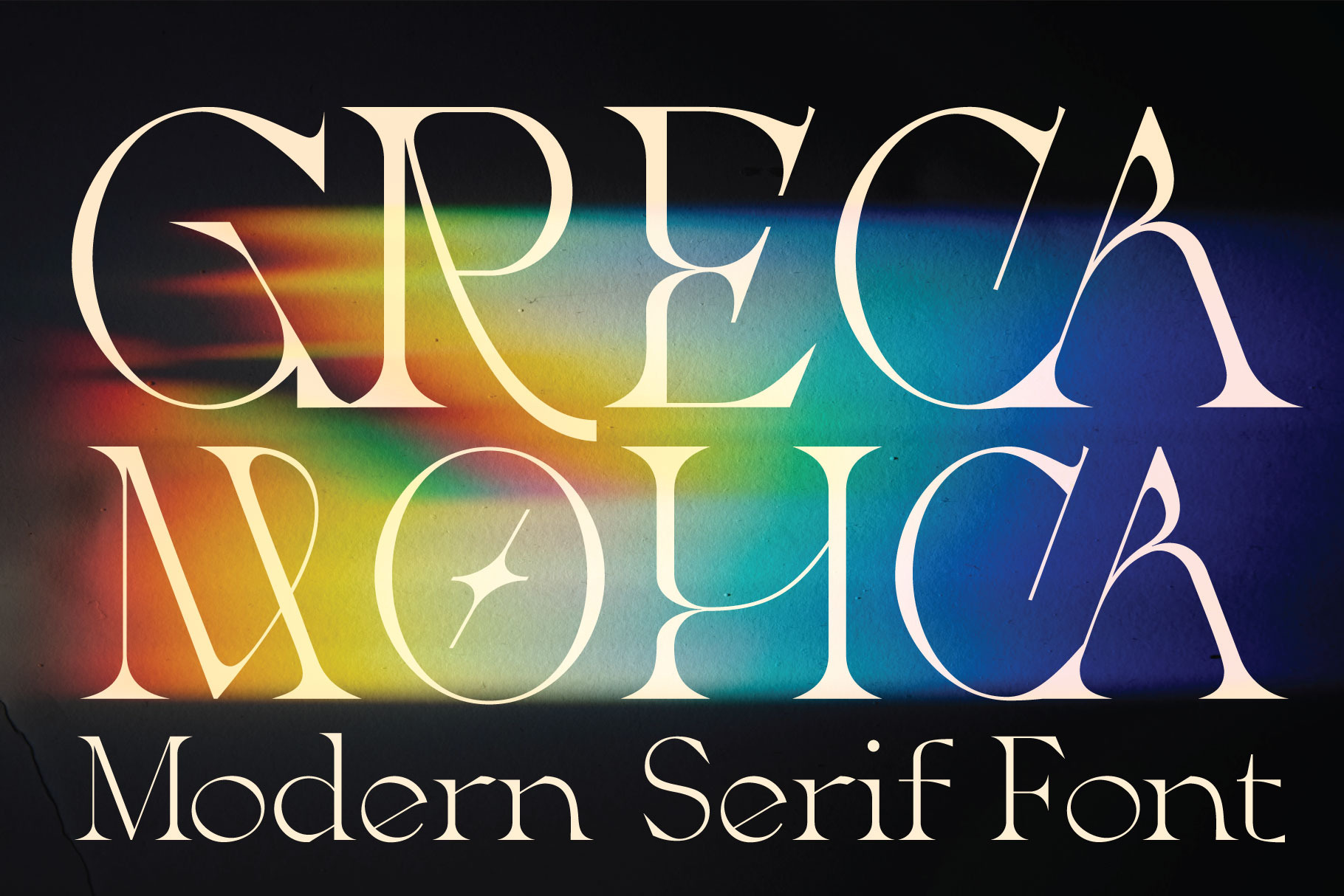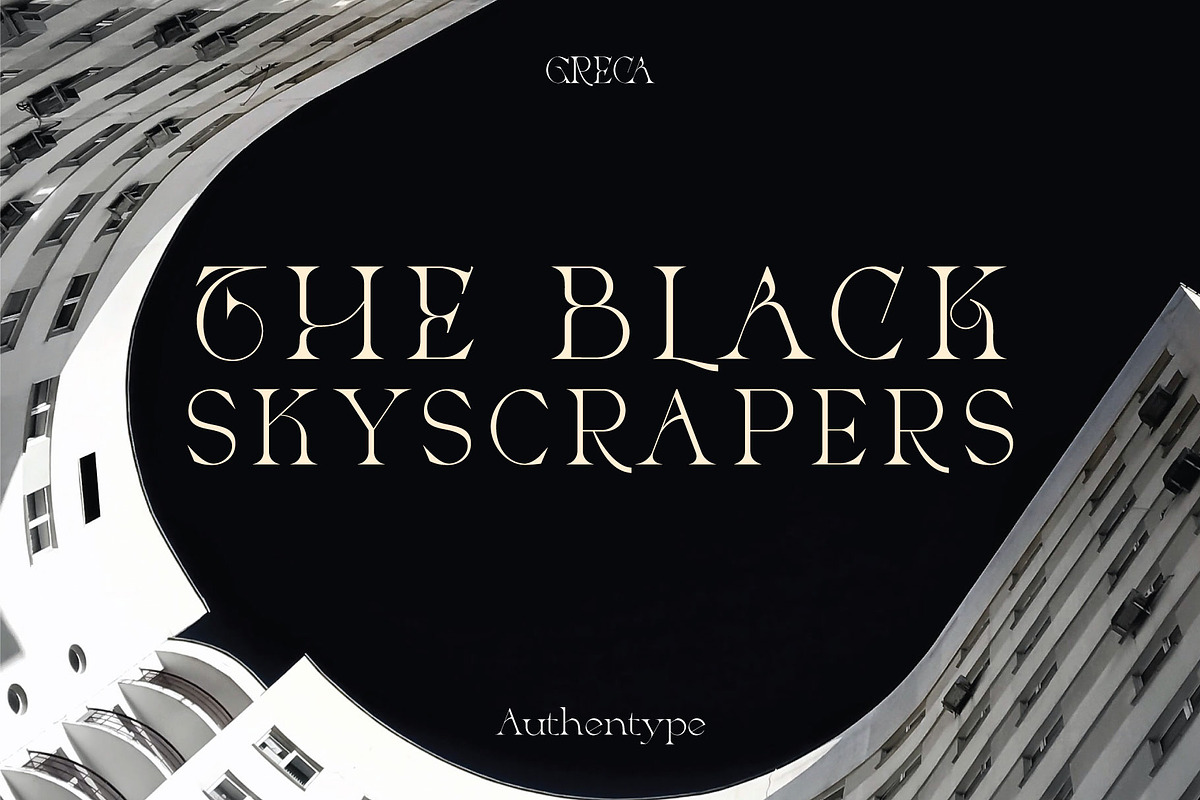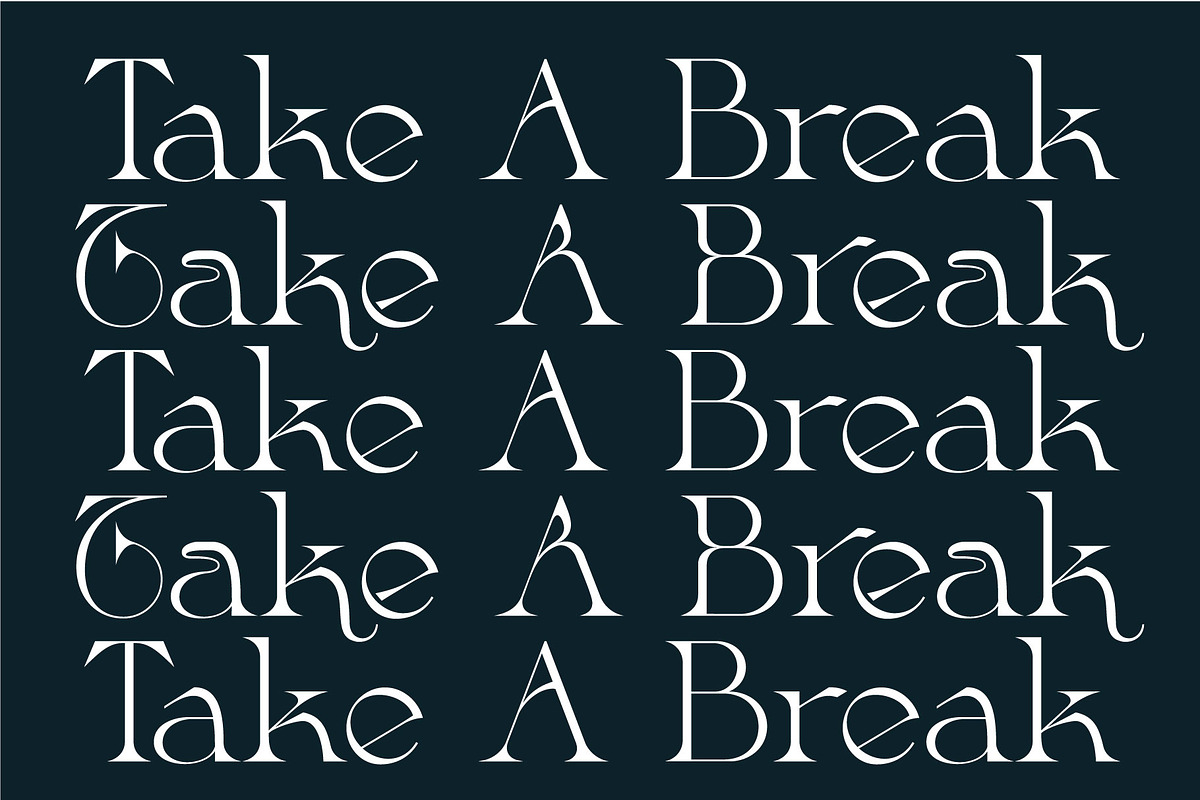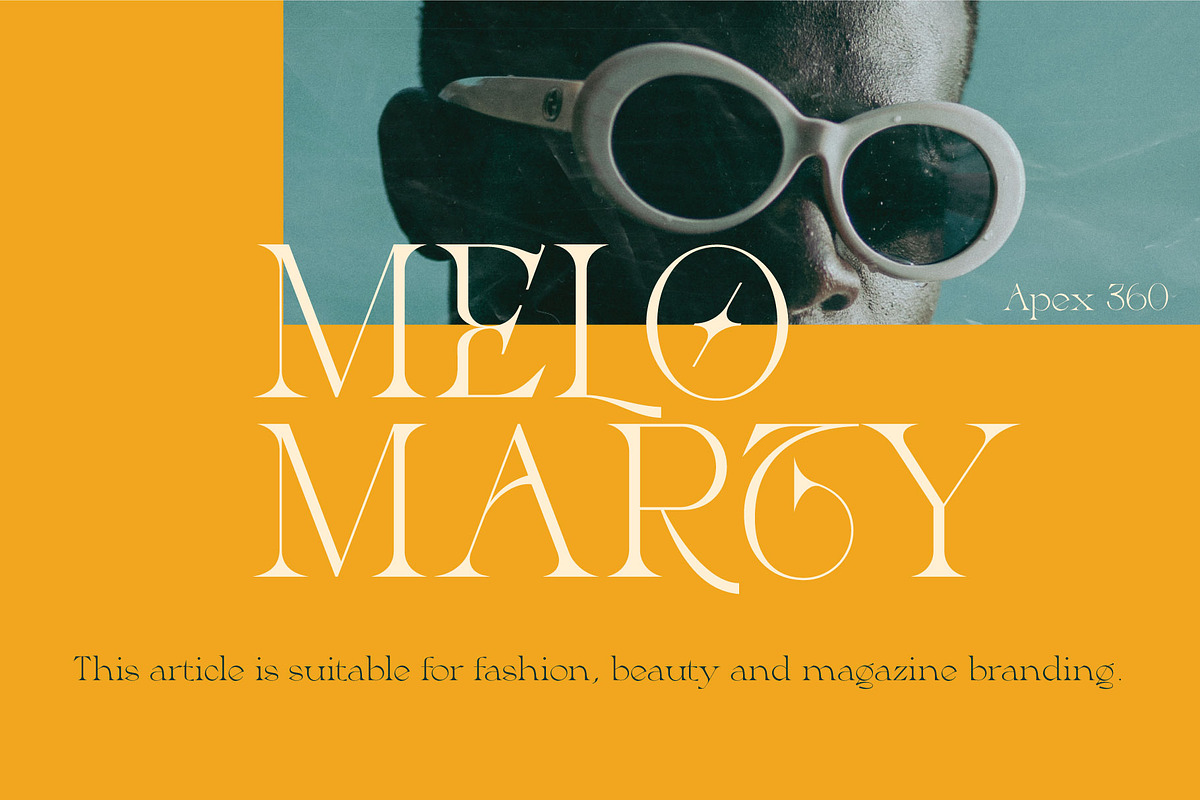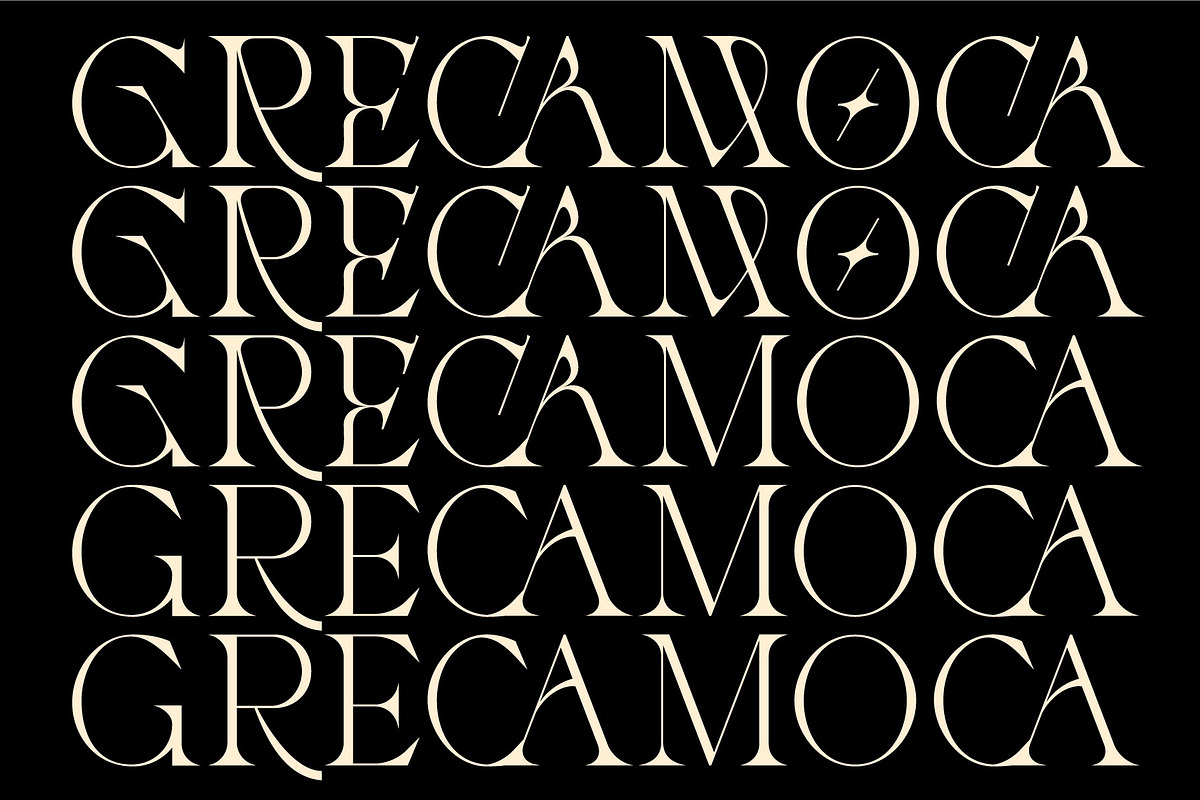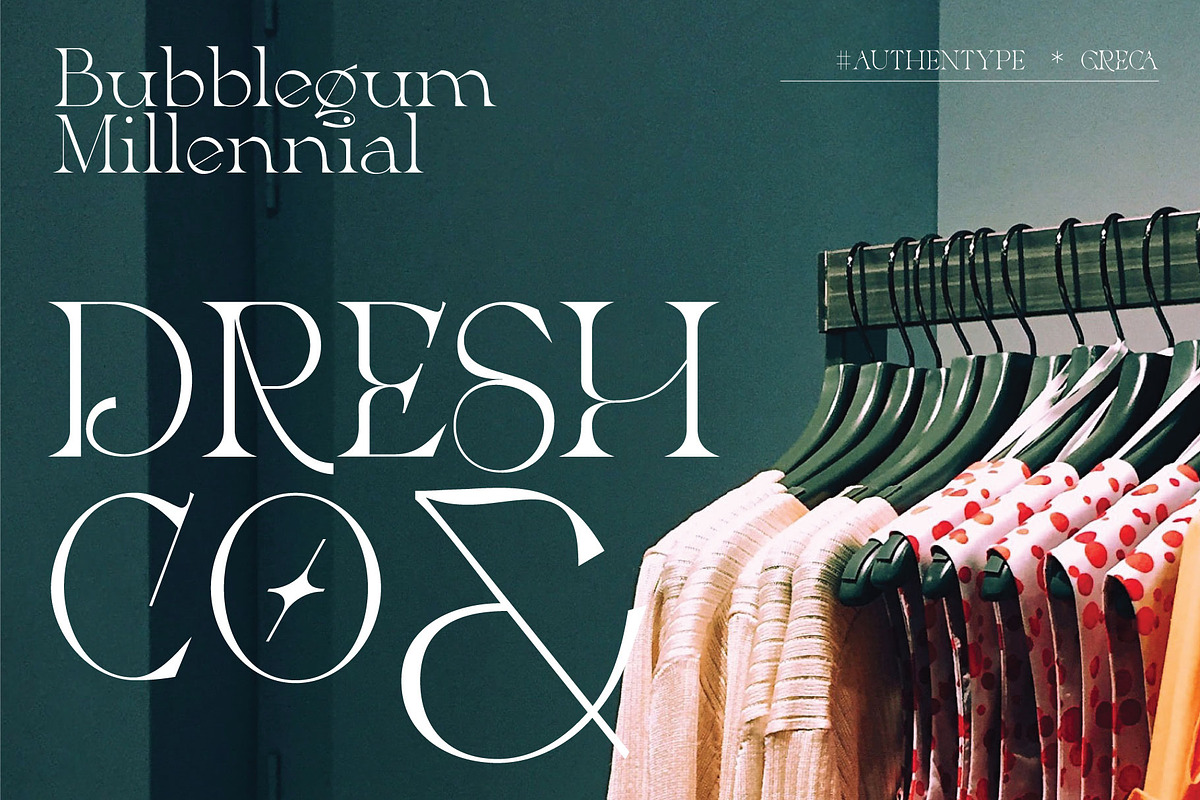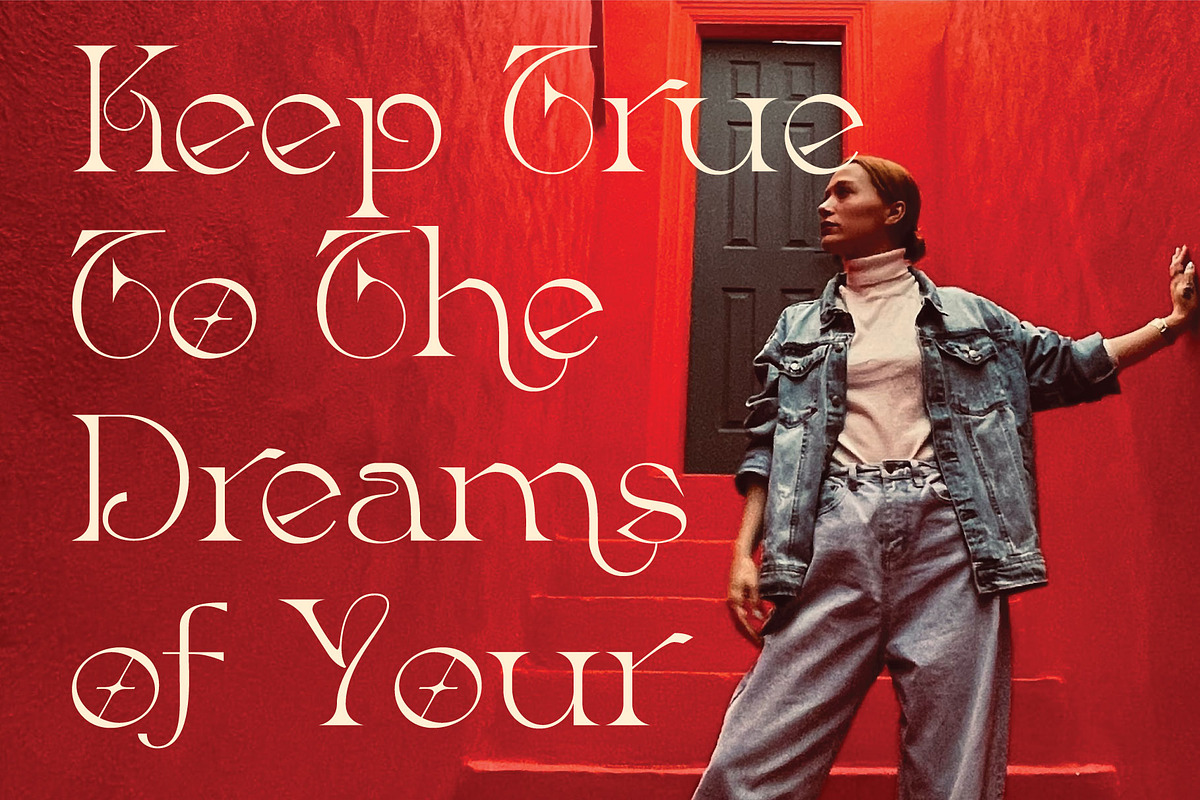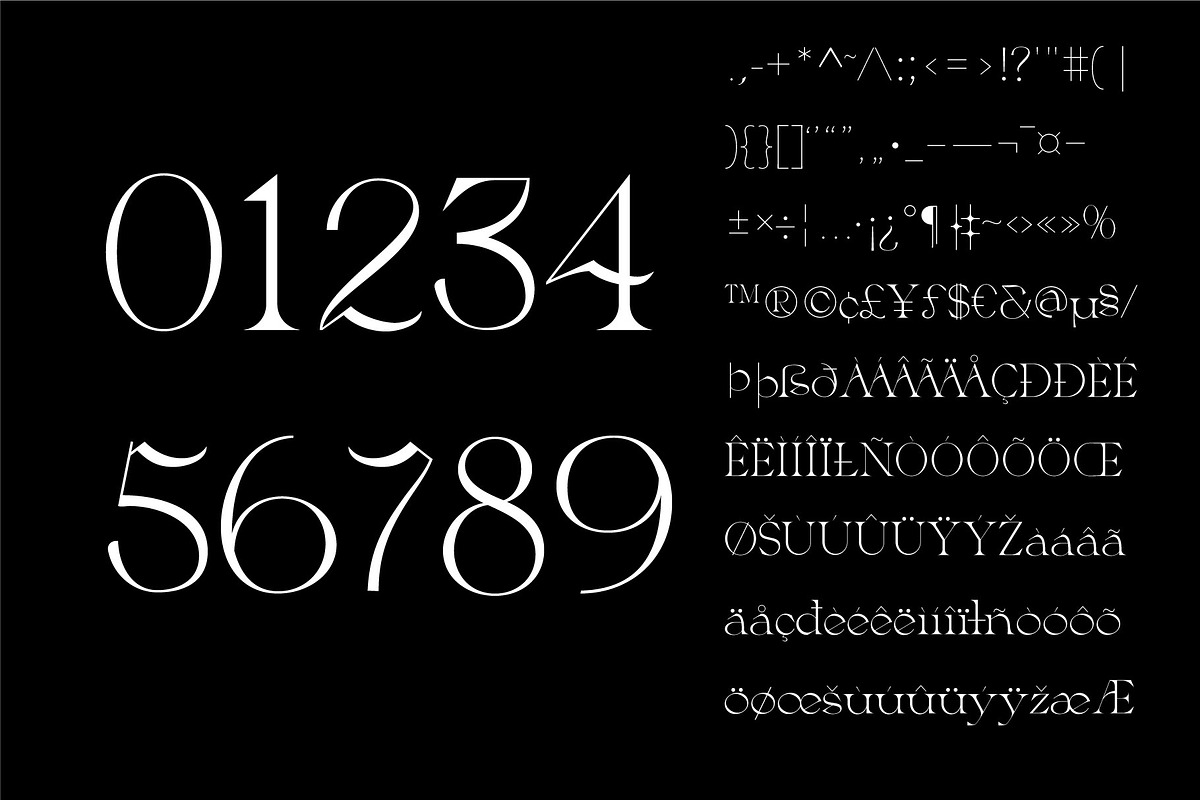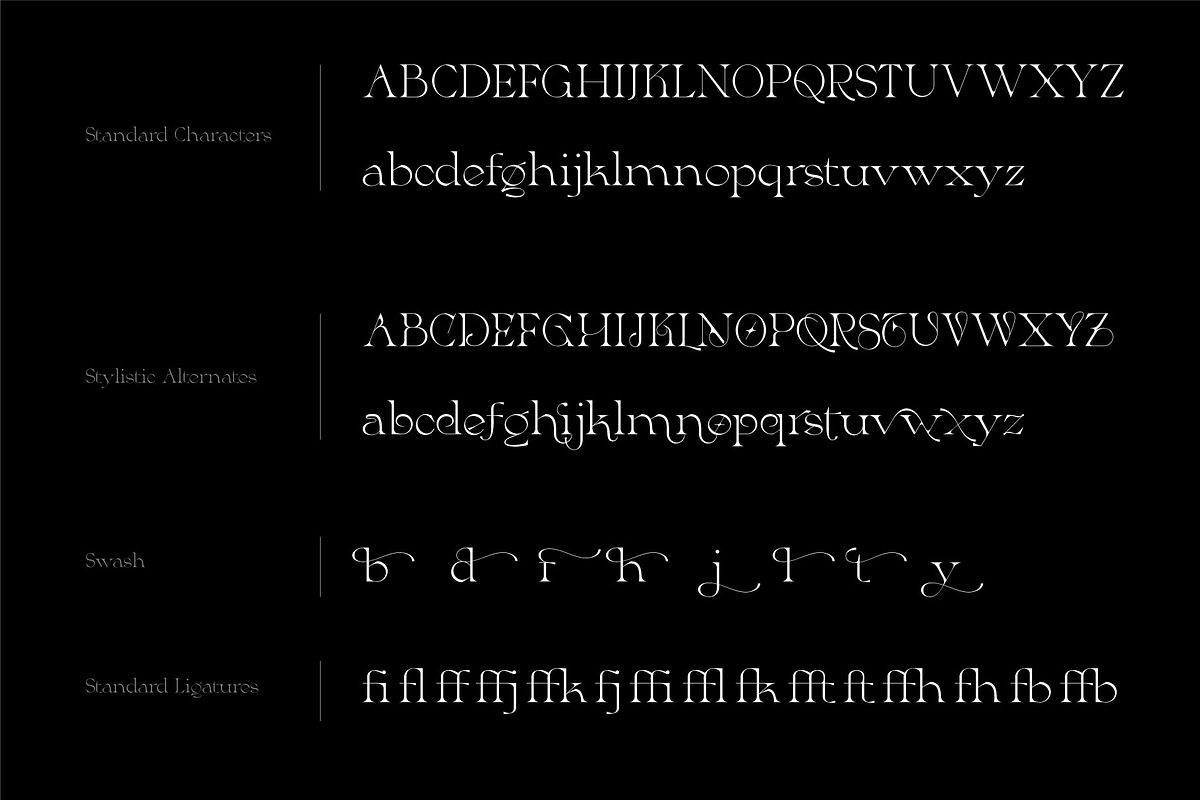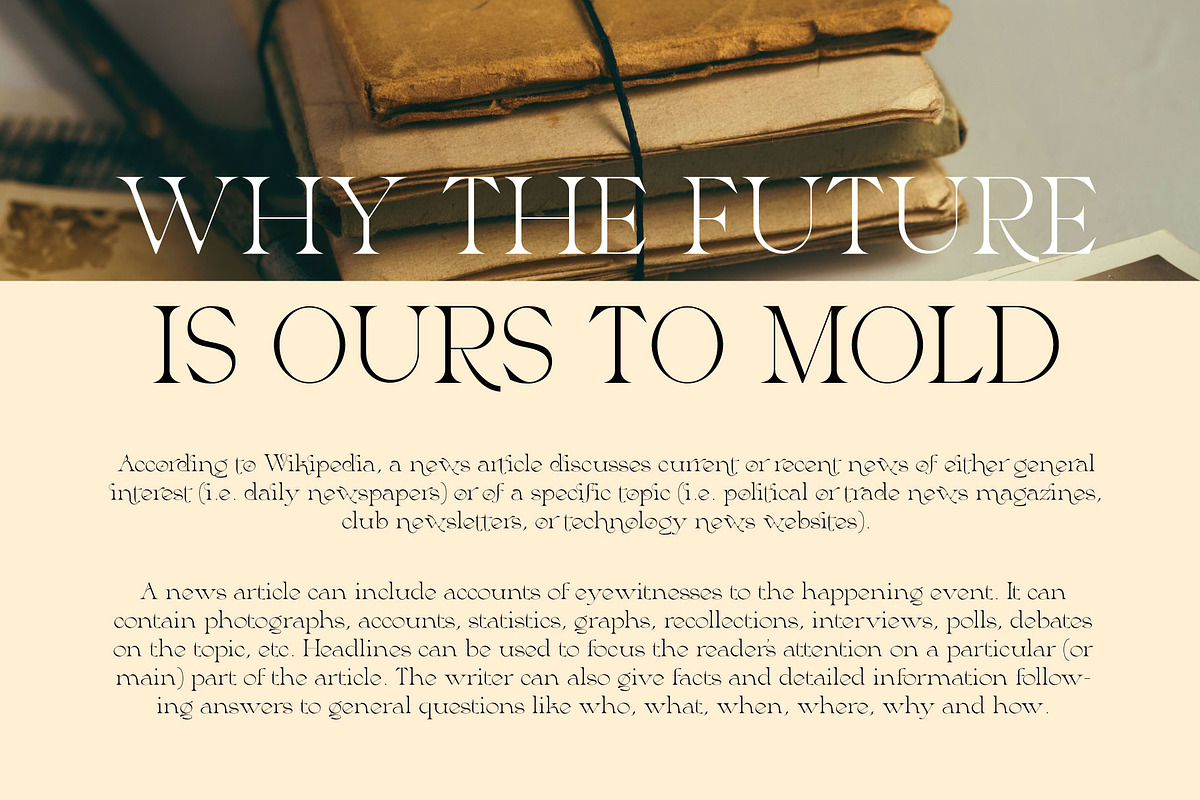
Greca - Modern Serif Font
Greca Modern Serif Font with multi shapes and lines. There are two types of letters by activating stylistic alternates you will get a very contrasting feel than regular letters. It was also followed by the addition of swash, many ligatures, and many languages.
- Standard glyphs uppercase and lowercase letters
- Numerals, a large range of punctuation and ligatures.
- Swashes,
- Stylistic Set